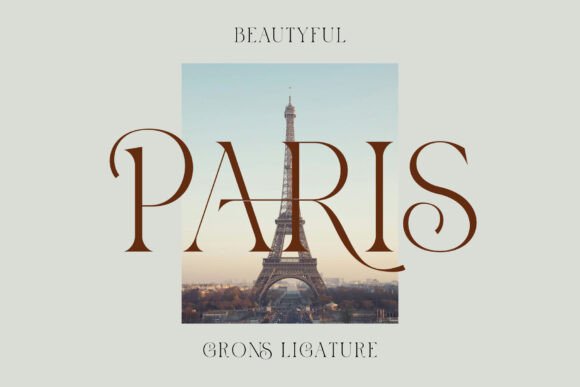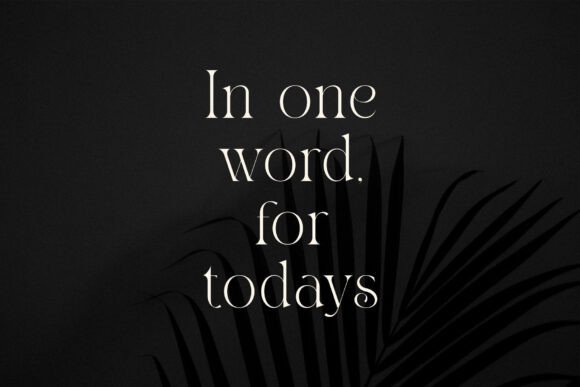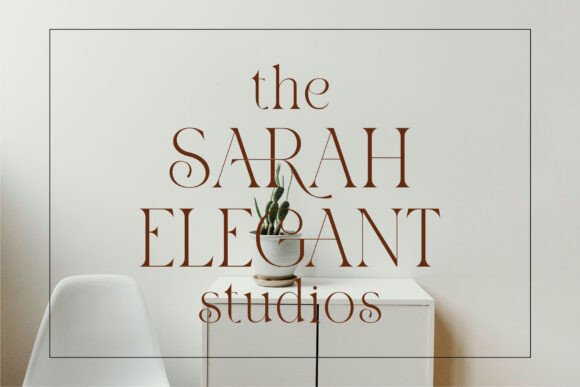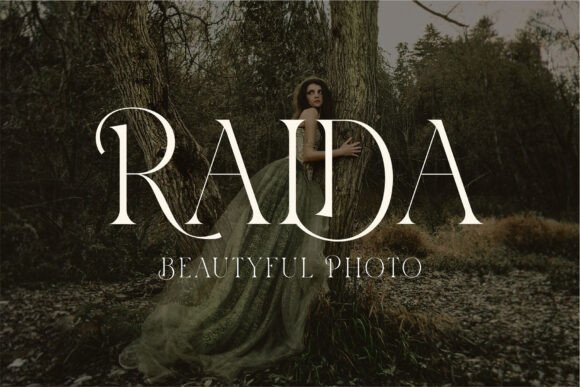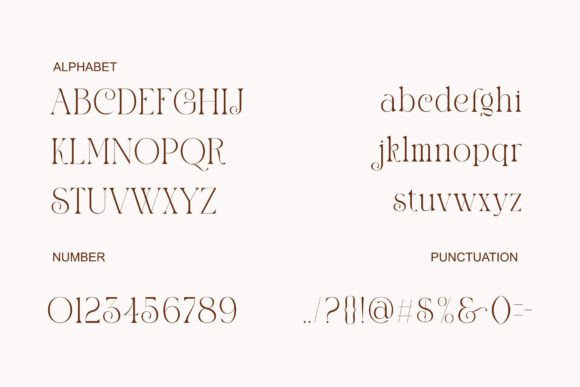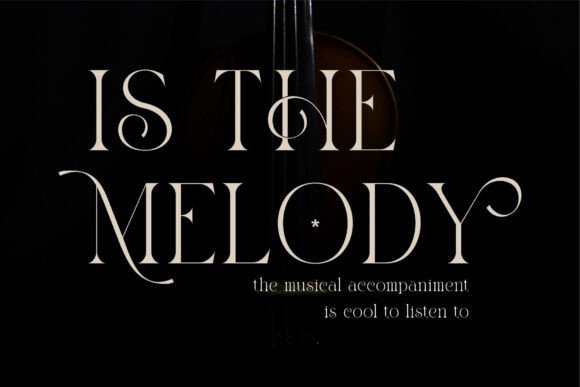
Discover the Elegance of Grons History Font: A Timeless Choice for Sophisticated Designs
In the world of typography, few fonts manage to convey the essence of luxury and sophistication as effectively as Grons History. This modern serif font is a masterpiece of design, boasting elegant ligatures, refined curves, and a distinctive artistic flair that sets it apart from more conventional typefaces. Grons History is not just a font; it’s an experience, a statement of style and class that can elevate any design project to new heights of elegance and refinement.
The Characteristics of Grons History Font
Grons History is characterized by its luxurious letterforms and artistic strokes, which exude a timeless beauty. The font’s design is deeply rooted in traditional serif typography, yet it incorporates modern elements that give it a fresh and contemporary feel. The elegant ligatures and refined curves of Grons History add a touch of sophistication to any text, making it perfect for high-end branding, editorial layouts, invitations, or fashion-inspired projects.
One of the standout features of Grons History is its versatility. This font is not limited to a specific use case; it can be effectively used in a variety of design projects. Whether you’re working on a luxury brand’s logo, a fashion magazine’s editorial layout, or a high-end wedding invitation, Grons History brings a distinct sense of class and creative flair to your typography. Its adaptability makes it a valuable addition to any designer’s font library.
Perfect for High-End Branding
For brands aiming to convey a sense of luxury, sophistication, and tradition, Grons History is an excellent choice. The font’s classic serif structure, combined with its elegant ligatures and refined curves, creates a visually appealing and memorable brand identity. By using Grons History in branding, companies can instantly elevate their visual identity and communicate their values of quality, elegance, and refinement to their audience.
Enhancing Editorial Layouts
In editorial design, the choice of font can significantly impact the reader’s experience. Grons History, with its clear and elegant letterforms, enhances the readability of text while adding an artistic touch to editorial layouts. Whether it’s for a fashion magazine, a luxury lifestyle publication, or any high-end editorial project, Grons History can help create a visually stunning and engaging reading experience.
Crafting Invitations and Special Occasions
For special occasions such as weddings, galas, or corporate events, the invitation sets the tone for the event. Grons History, with its sophisticated and elegant design, is perfect for crafting invitations that convey a sense of luxury and exclusivity. The font’s artistic strokes and ligatures add a personal touch to the invitation, making it memorable and impactful.
Implementing Grons History in Your Designs
Integrating Grons History into your design projects is straightforward. Designers can use this font in various applications, from digital platforms like websites and social media to print materials such as brochures, posters, and business cards. The key to effectively using Grons History is to balance it with other design elements, allowing its elegance and sophistication to shine through without overwhelming the design.
Grons History Font is a sophisticated modern serif font that brings a distinct sense of class and creative flair to any typography. Its elegant ligatures, refined curves, and luxurious letterforms make it an ideal choice for designers and crafters looking to add a touch of sophistication and elegance to their projects. Whether for high-end branding, editorial layouts, invitations, or fashion-inspired projects, Grons History is a timeless choice that can elevate designs to new heights of luxury and refinement.
In conclusion, Grons History is more than just a font; it’s a design statement that speaks of luxury, elegance, and sophistication. Designers and crafters looking to create visually stunning and memorable designs should consider adding Grons History to their toolkit. Its versatility, elegance, and timeless beauty make it a valuable asset for any design project aiming to convey a sense of class and refinement.